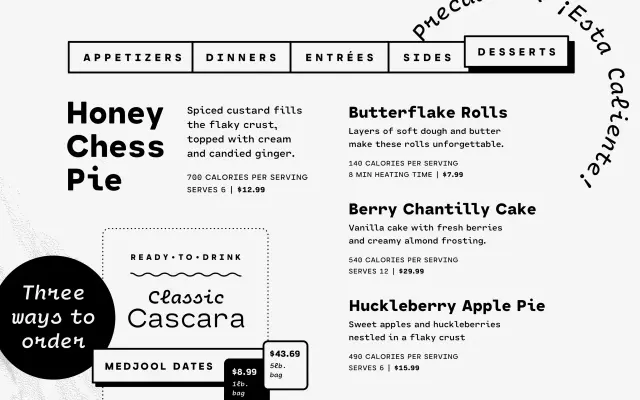
Cartograph CF
A warm, character-rich monospaced family built for both code and prose, with a lush cursive italic and extensive OpenType features including code ligatures.
Eight weights with matching italics span from Thin to Heavy, making it unusually expressive for a coding font. The italic is genuinely cursive rather than a slanted roman, and a proportional alternate set is accessible via OpenType for prose contexts. Language support is broad, covering Latin Extended, Cyrillic, Greek, Katakana and Vietnamese, with a contextual ligature system tailored to programming syntax.
A monospaced family explicitly designed for code and terminal use, with a cursive italic and warmth drawn from humanist traditions rather than strict geometric or mechanical mono conventions.